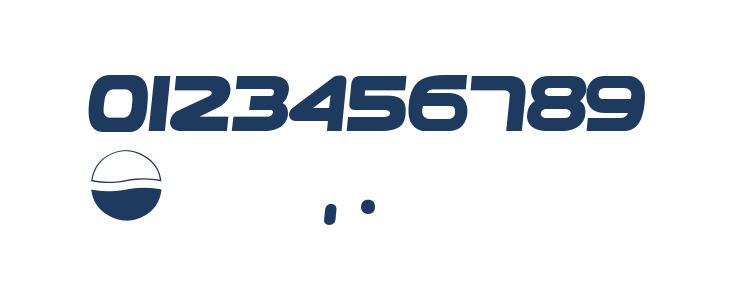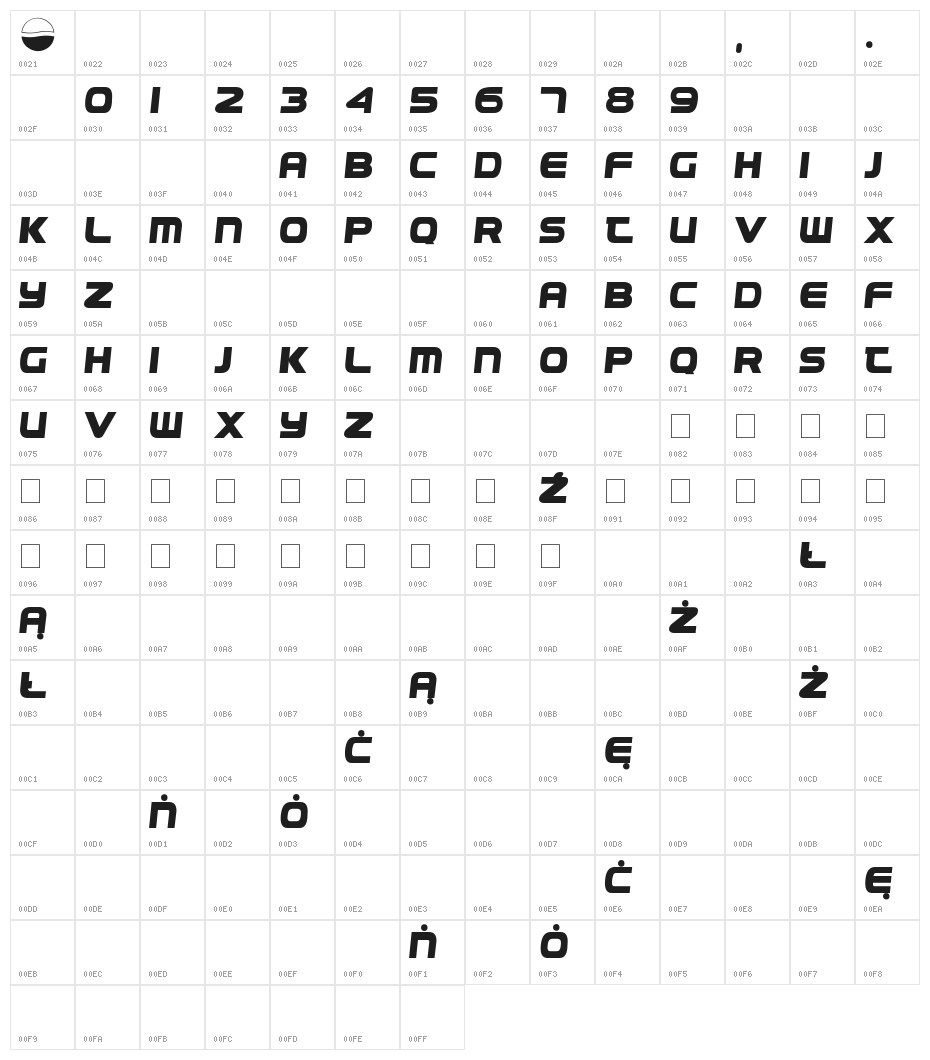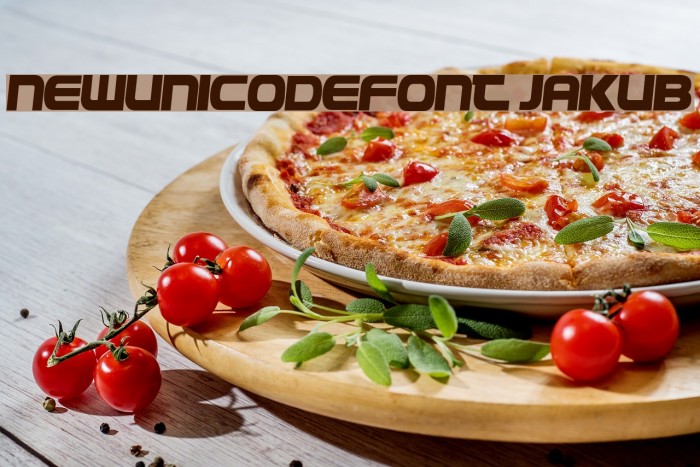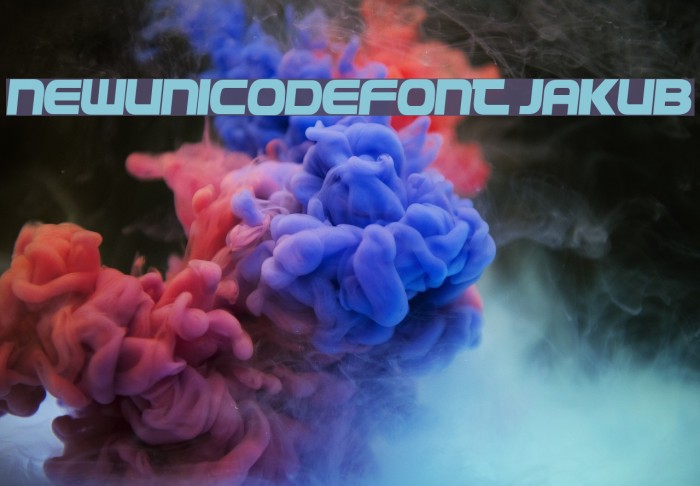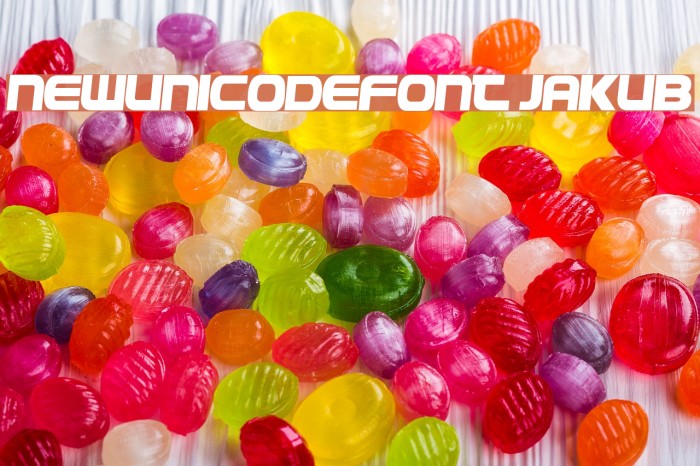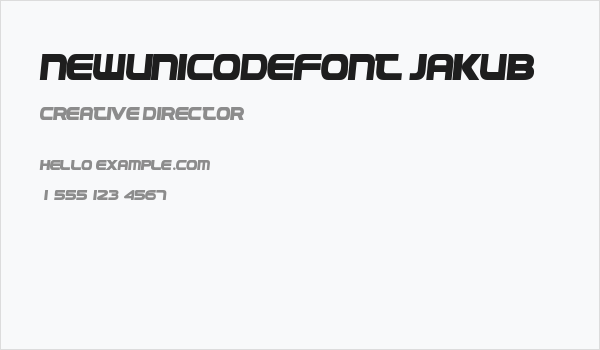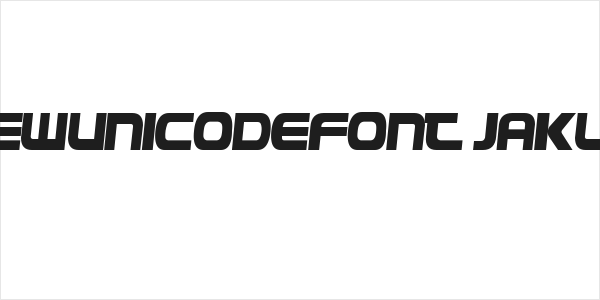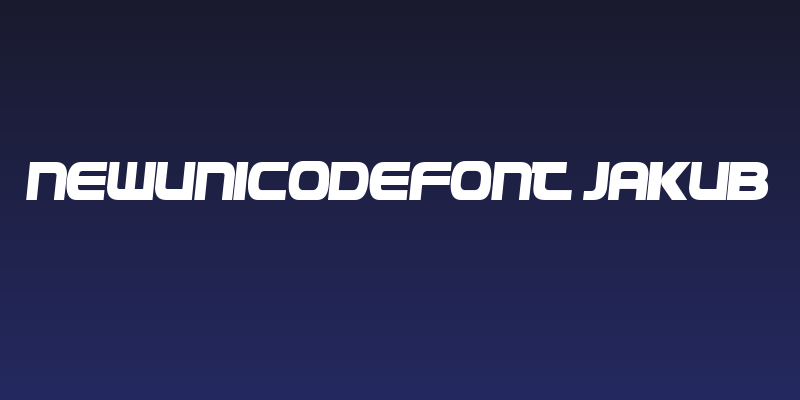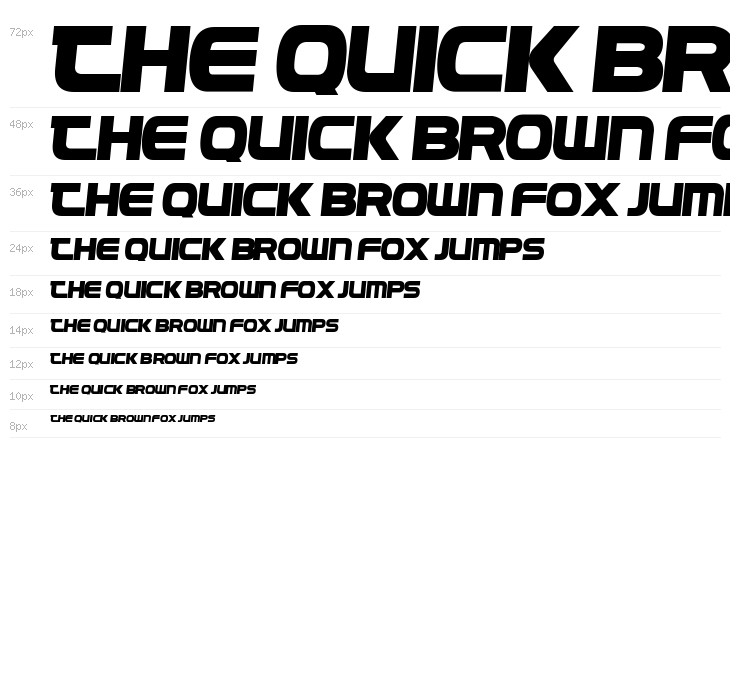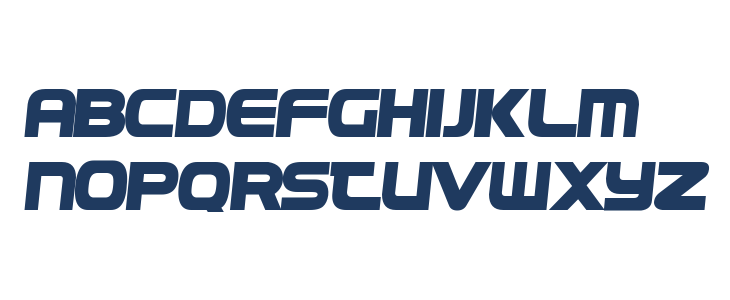
This font features a bold and dynamic design with a futuristic flair. The characters are slightly slanted, giving a sense of motion and energy. The strokes are thick and consistent, providing a strong visual impact. The rounded edges soften the overall appearance, making it approachable yet assertive. This font is highly legible, with distinct letterforms that maintain clarity even at smaller sizes. The numbers and special characters are designed to match the boldness and style of the alphabet, ensuring a cohesive look across all text elements.
| Proposed Projects | Ideal for technology branding, sports team logos, video game titles, and sci-fi themed designs. |